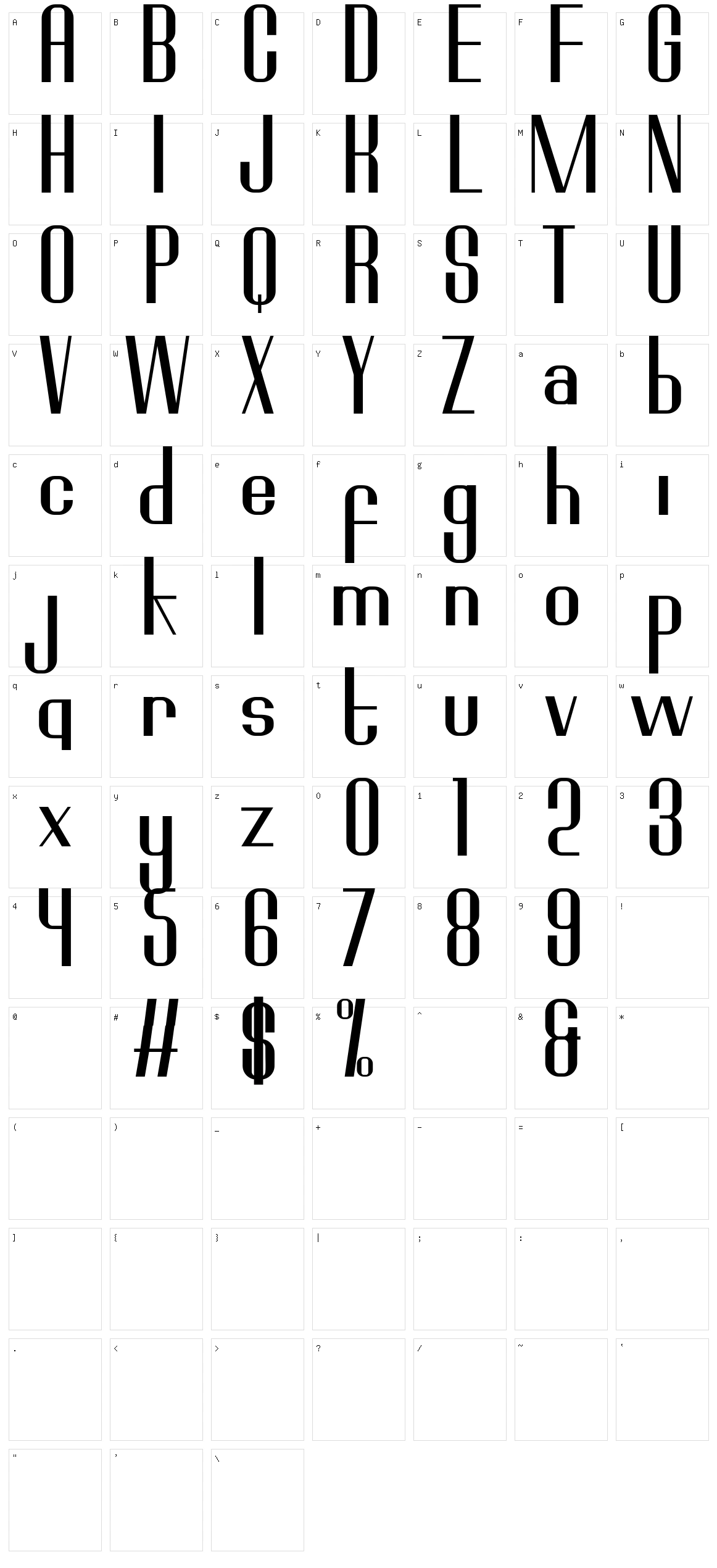
The free font Interstelar Cab is carefully designed by Nariswari Creative, showcasing a thoughtful balance of creativity and usability and falls under the Sans serif font style. When you download the ZIP file, it contains only 23.56 KB of font files, making it lightweight and quick to download. Please review the license details below to understand permitted usage and distribution rights. If license information is not available, we recommend using this font for personal projects only or contacting the author directly for commercial usage permissions.